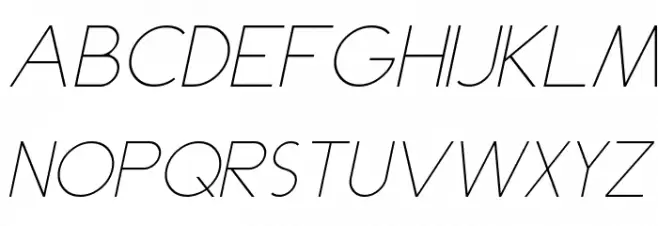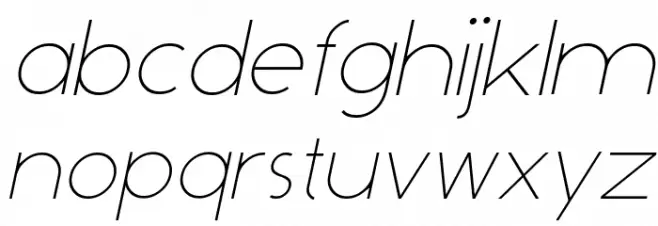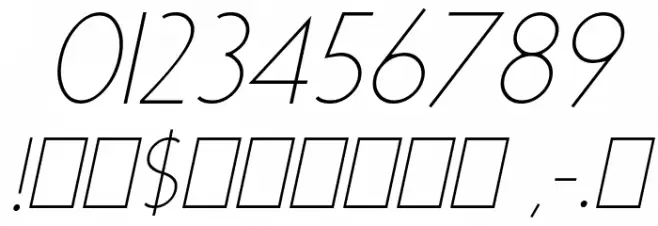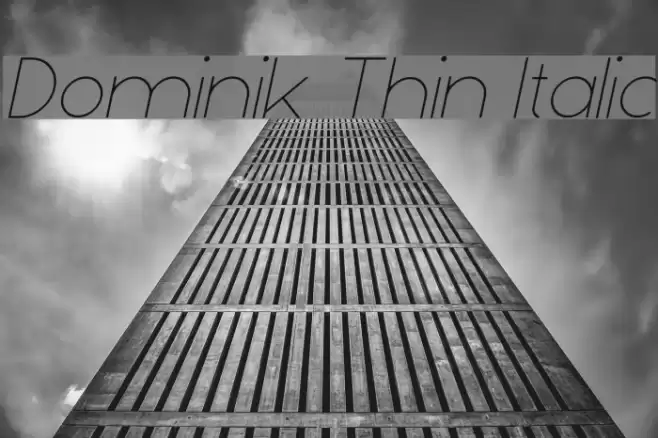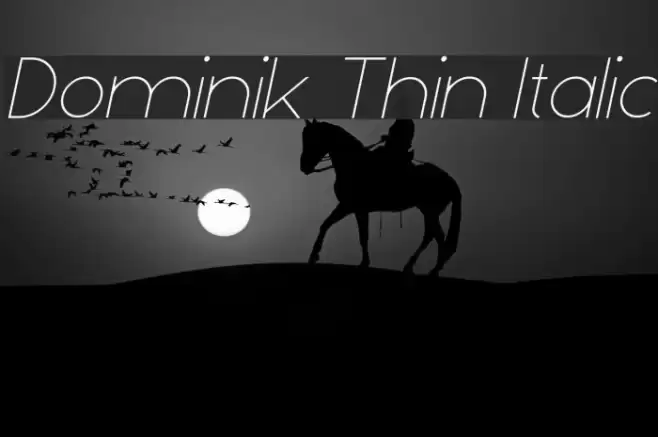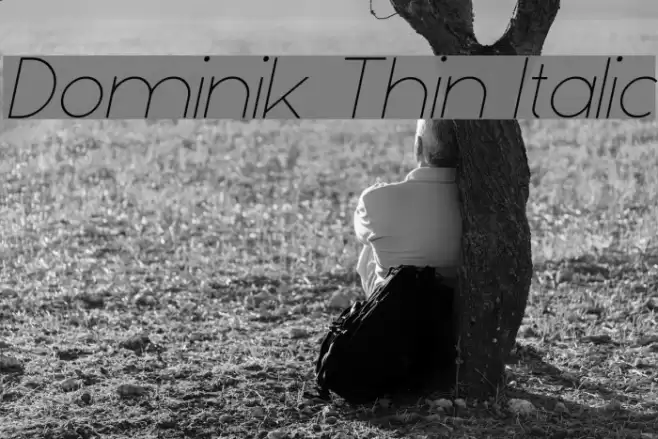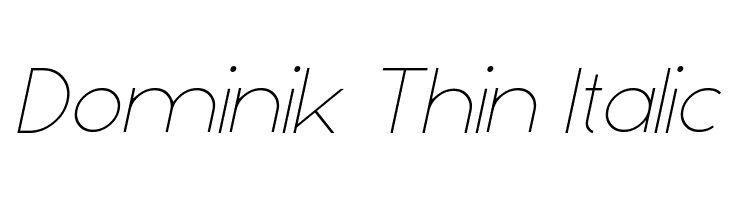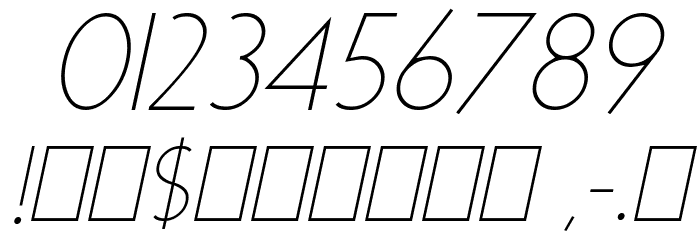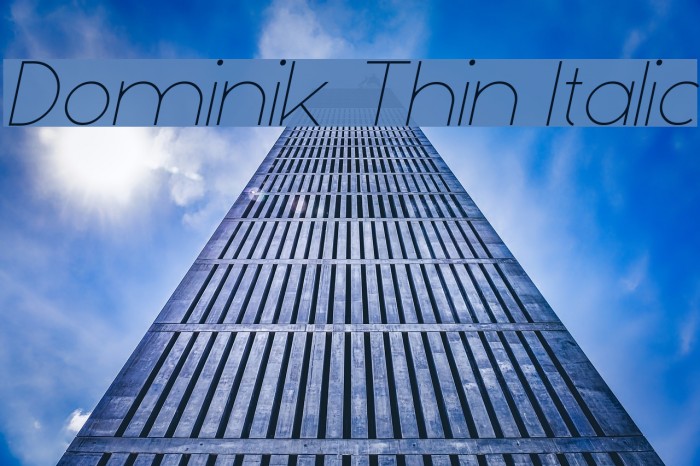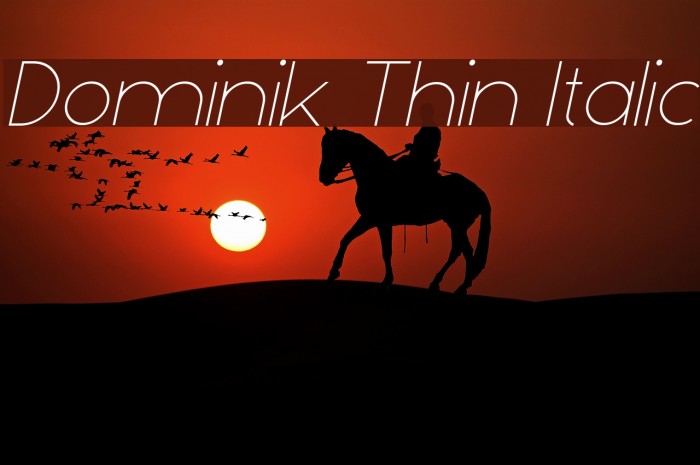
Dominik Thin Italic
This font features a sleek and elegant design with a thin and delicate structure. The italic style adds a sense of motion and fluidity, making it visually appealing for modern and sophisticated projects. The characters are well-spaced, ensuring readability while maintaining a stylish appearance. The uppercase letters are tall and graceful, while the lowercase letters are smooth and consistent. The numerals are clean and align well with the overall aesthetic. Special characters are included, enhancing its versatility for various applications.
A thin, elegant italic font with a modern and sophisticated style.
- Proposed Projects: Ideal for fashion magazines, luxury branding, elegant invitations, and modern web design.
- Weight: Light